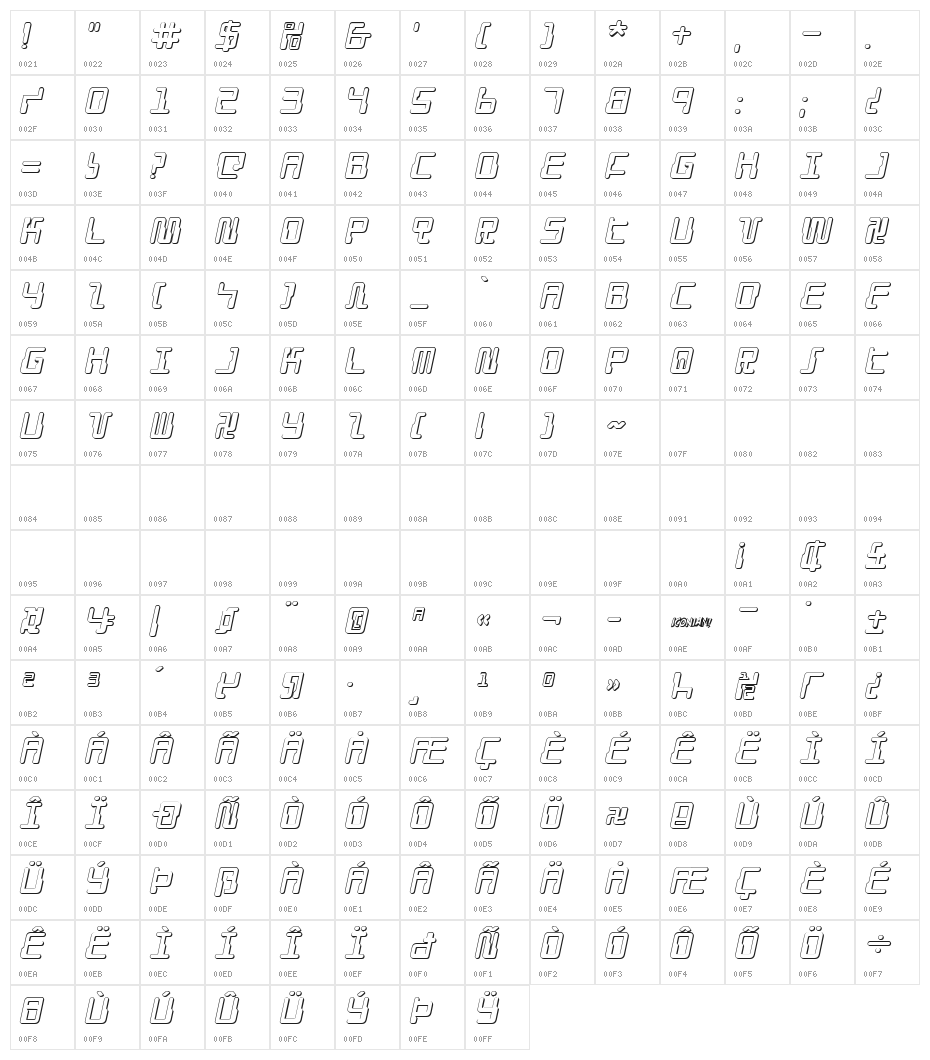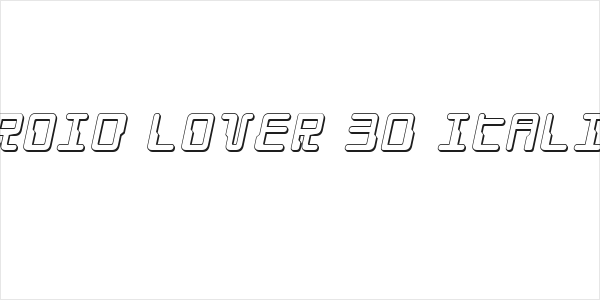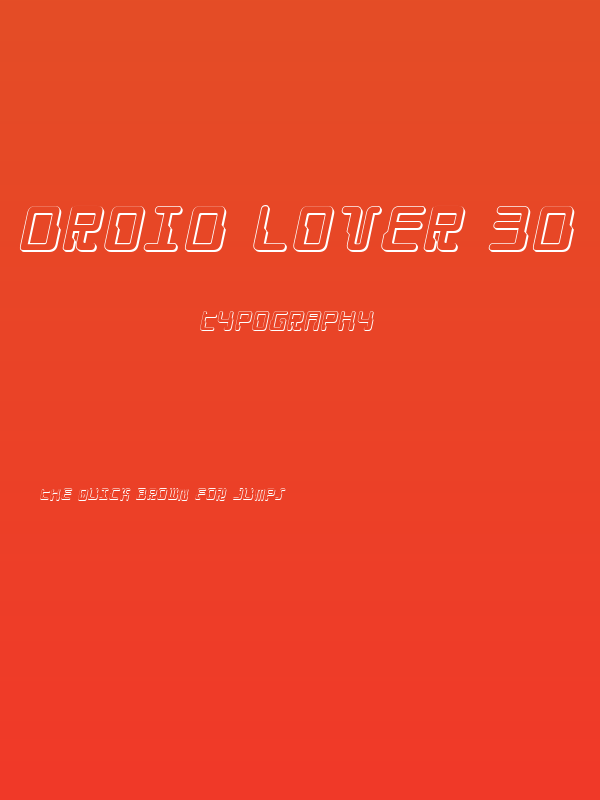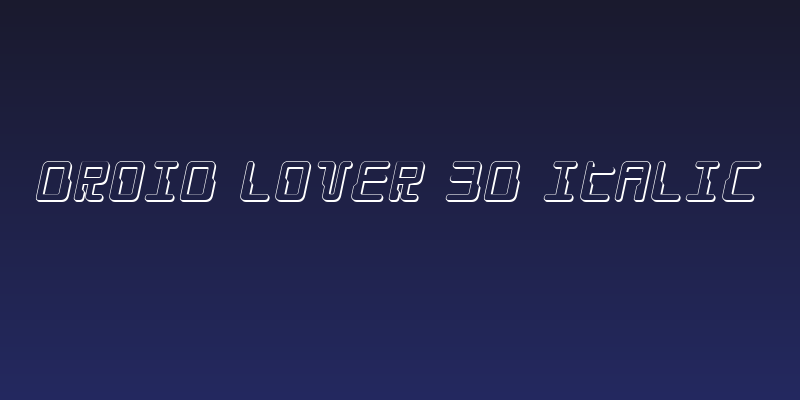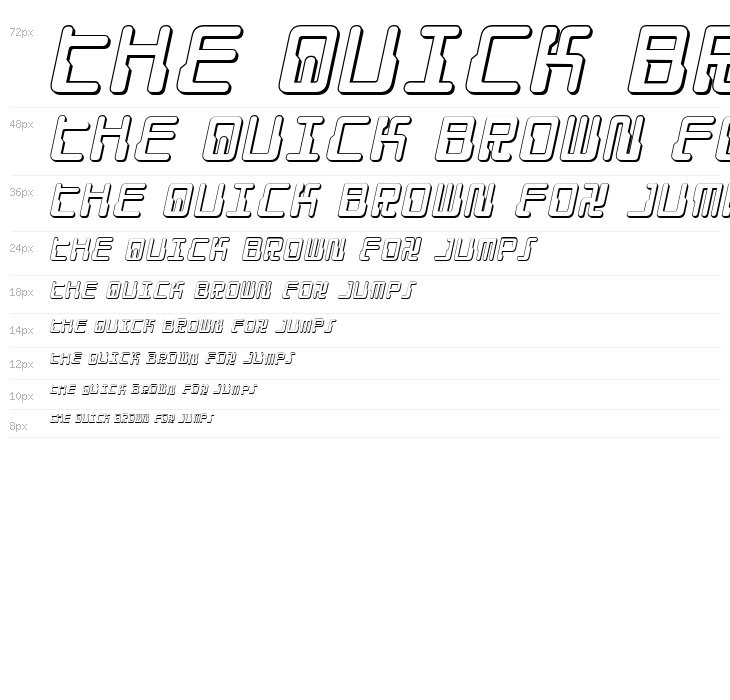
Droid Lover 3D Italic Font
Droid Lover 3D Italic Description
This font features a futuristic and geometric design with a 3D effect, characterized by its hollow, outlined letters. The characters have a consistent slant, giving them an italicized appearance. The uppercase and lowercase letters maintain a uniform style, with rounded edges and a distinct, angular form. Numbers and special characters follow the same design principles, ensuring a cohesive look across all glyphs. The font's unique style makes it stand out, ideal for projects that require a modern and tech-inspired aesthetic.
Proposed ProjectsIdeal for sci-fi themed designs, tech branding, video game titles, and modern posters.